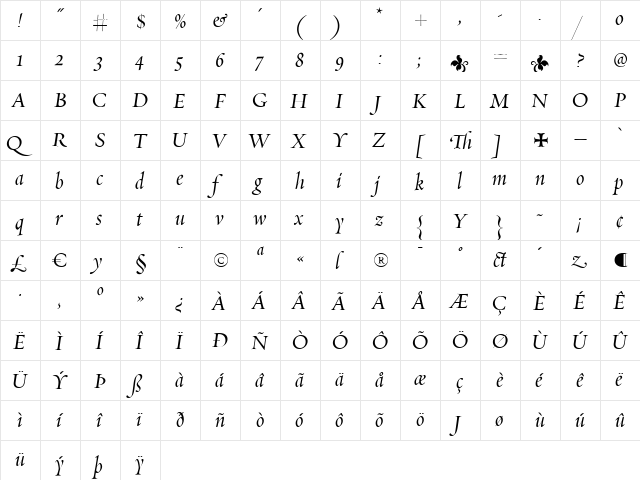
Requiem Medium Italic Font Preview
Requiem Medium Italic
Requiem Medium Italic Font Details
| Style | Medium Italic |
Design Context for Requiem Typeface
Requiem takes a measured approach to typography — its balanced proportions and neutral character make it a reliable workhorse for both digital and print work. The slanted form adds forward momentum and visual energy.